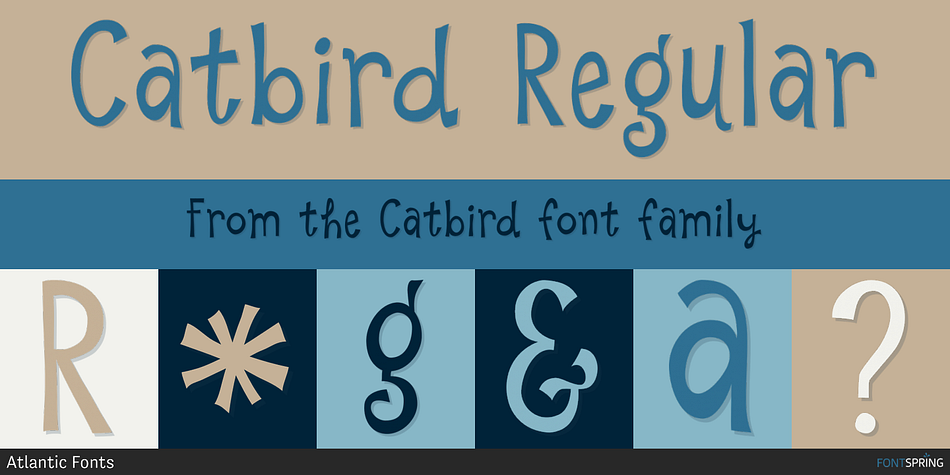
Catbird Regular
Catbird is a hand drawn and kids font published by Atlantic Fonts.
Friendly and spontaneous, Catbird loves to have fun.
Friendly and spontaneous, Catbird loves to have fun. Catbird approaches life with undaunted exuberance and adds a delightful and curious energy to every project.